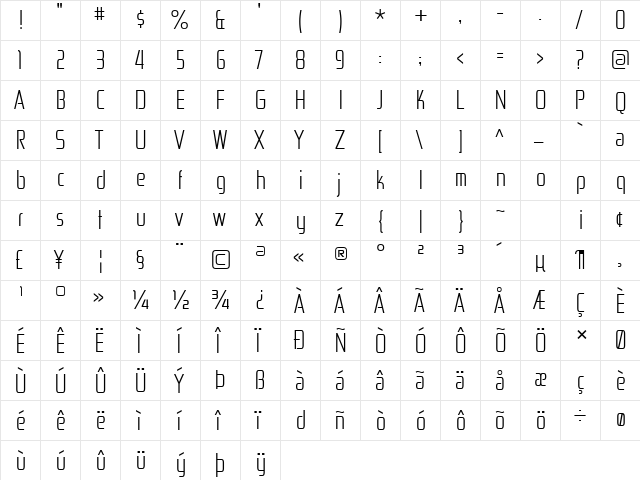
Zekton CdLt Regular
Design Context for Zekton CdLt Typeface
Zekton CdLt offers clean, dependable letterforms without strong stylistic allegiance, making it a practical choice for designers who need flexibility.
Pro Tip: Use Zekton CdLt in both headline and body roles to test its range before committing to a single application.